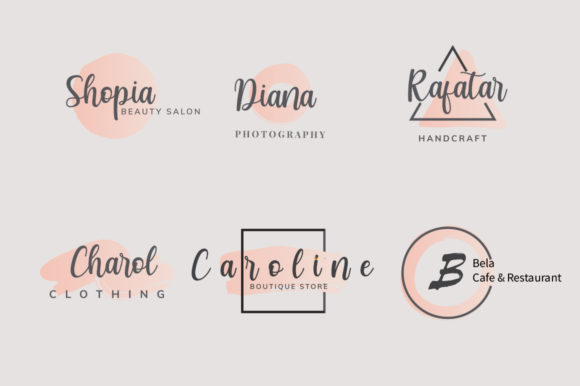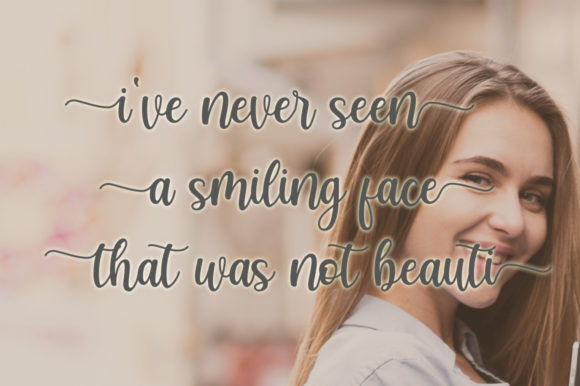
Marcella Font
db-ku.com - Script & Handwritten -- Marcella feels equally charming and elegant. It looks stunning on wedding invitations, thank you cards, quotes, greeting cards, logos, business cards and every other design which needs a handwritten touch.